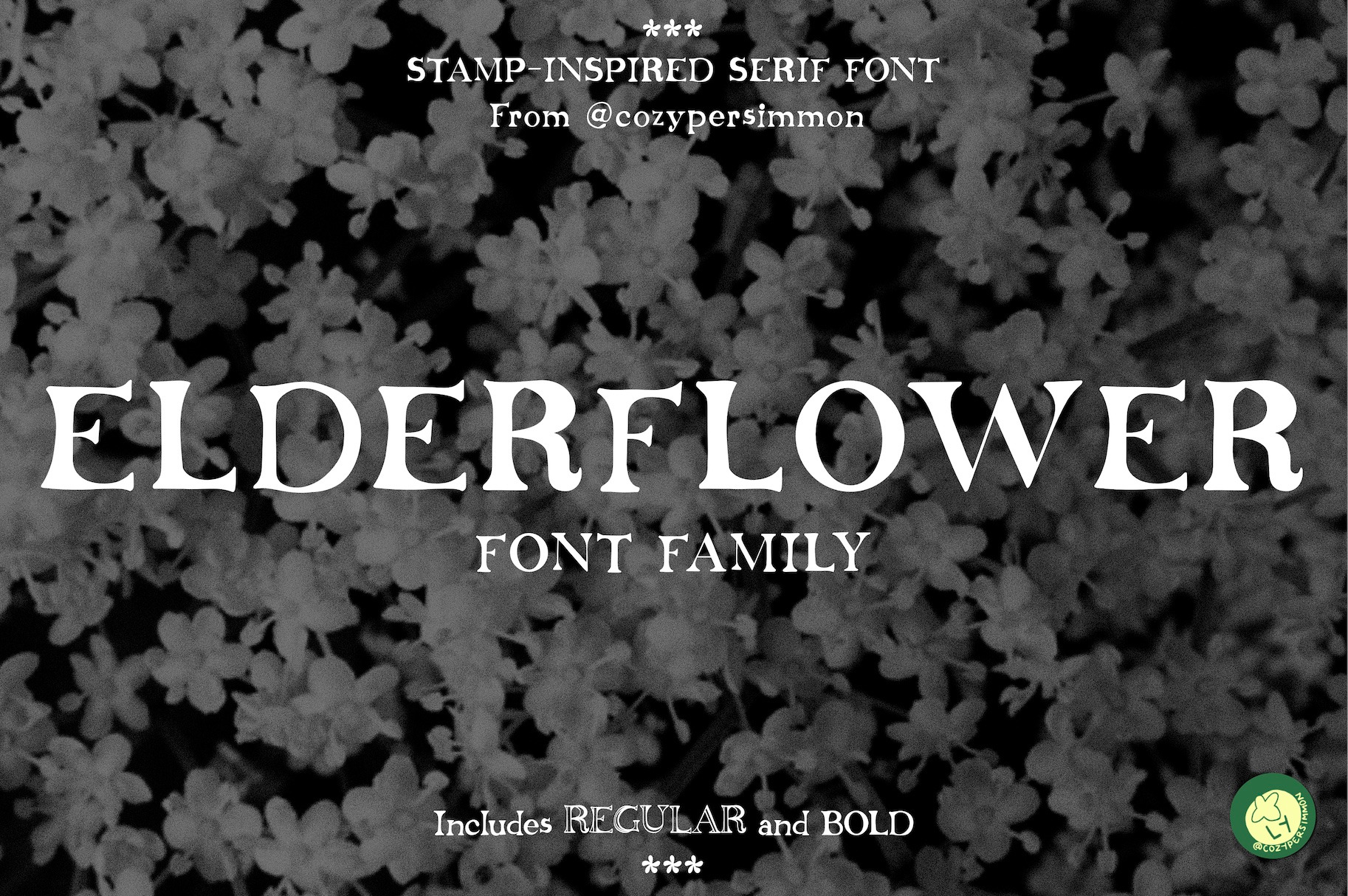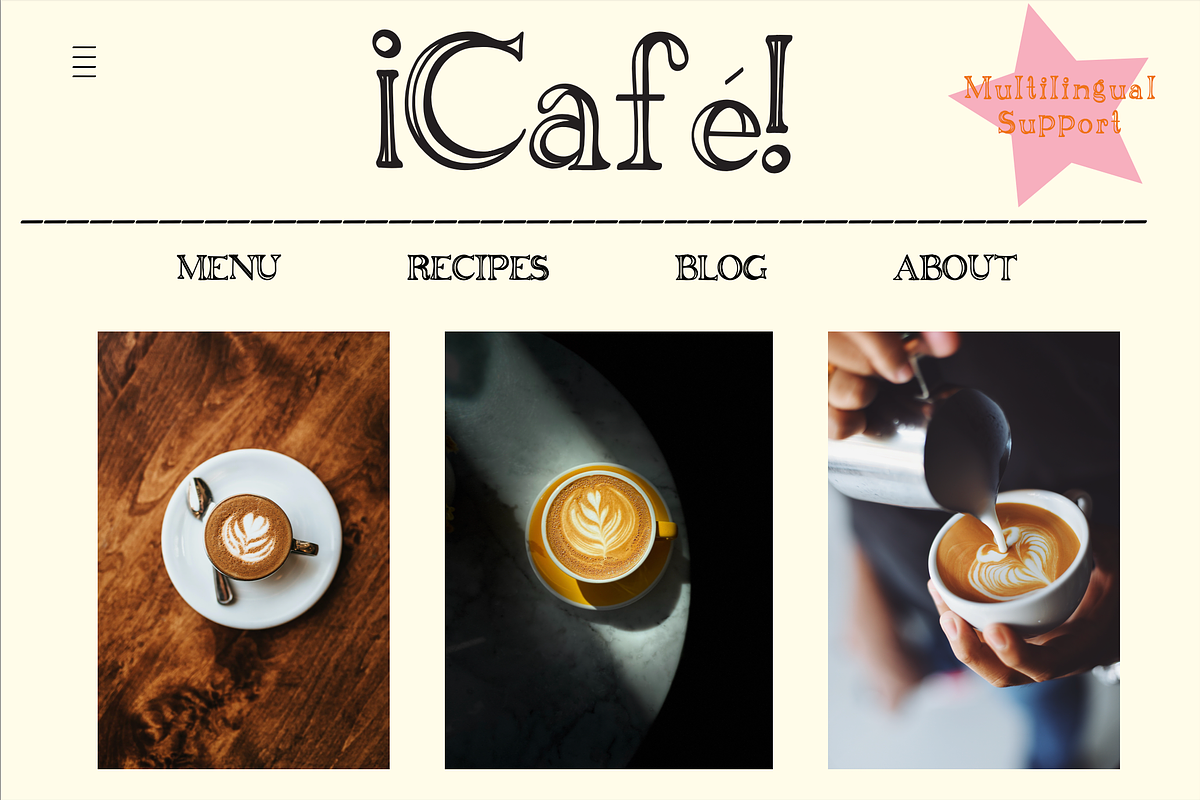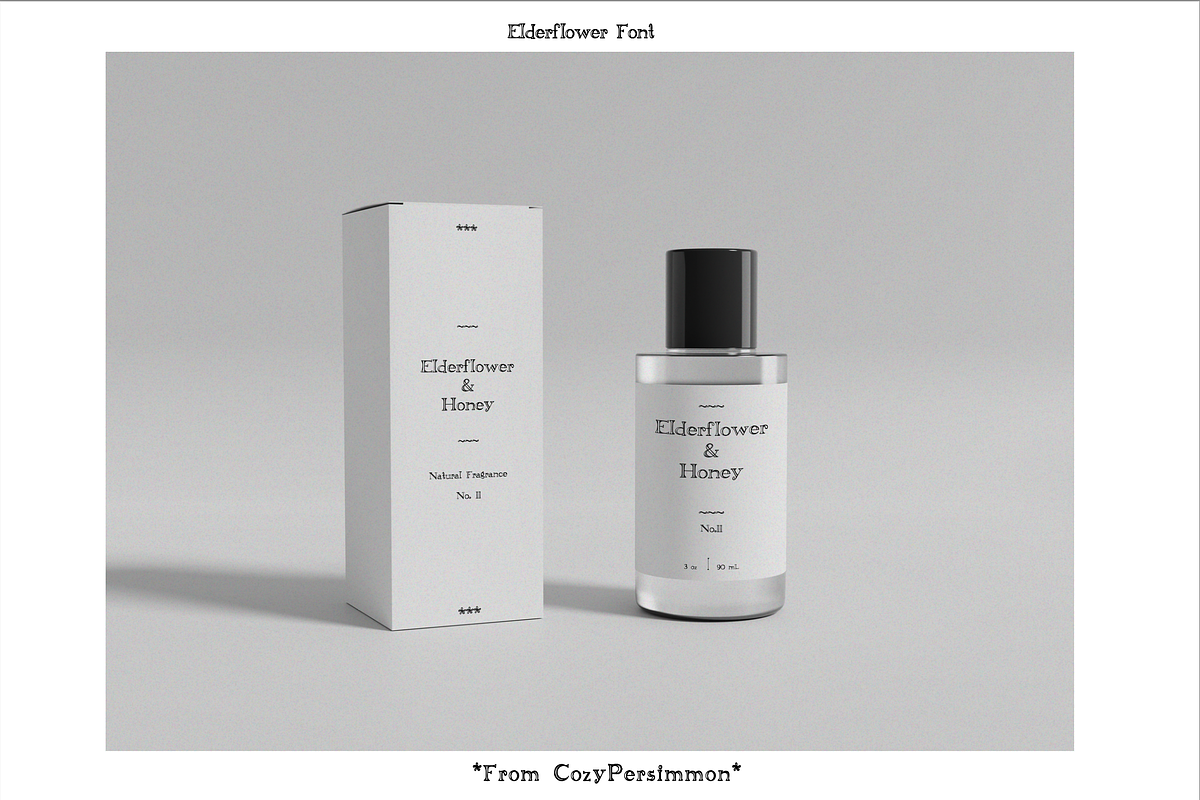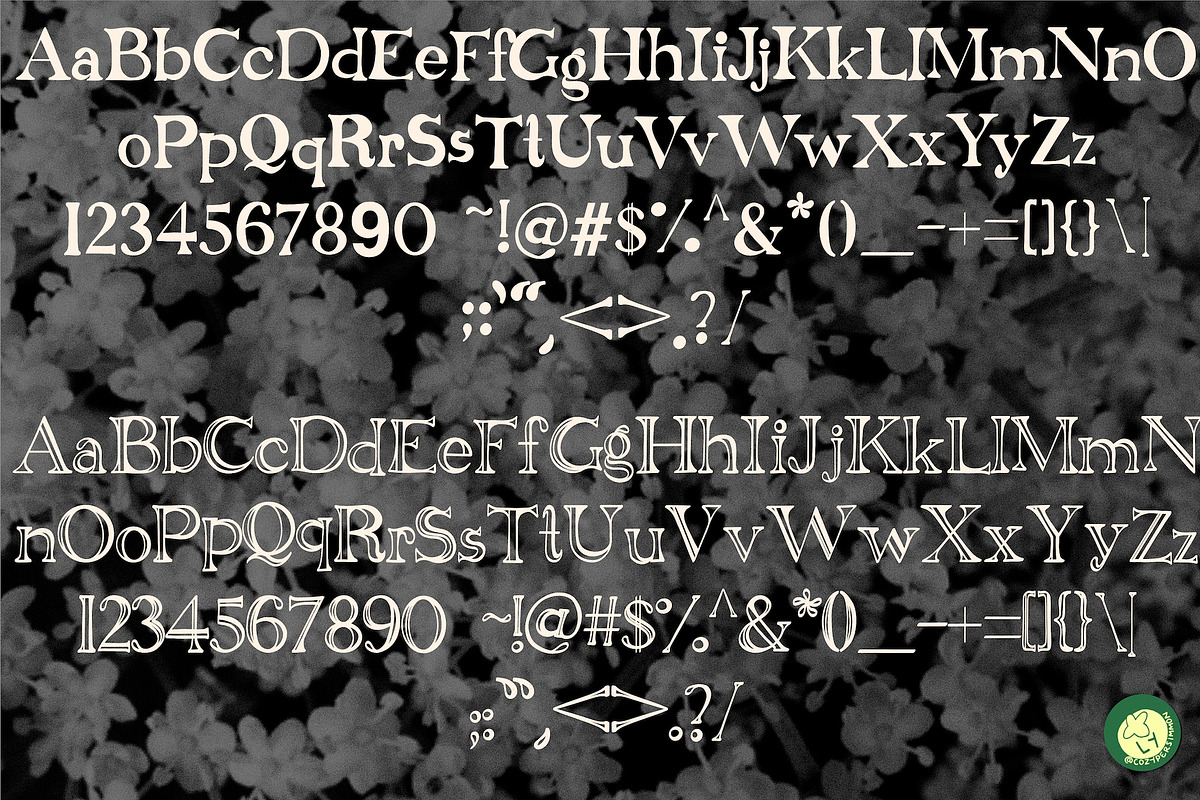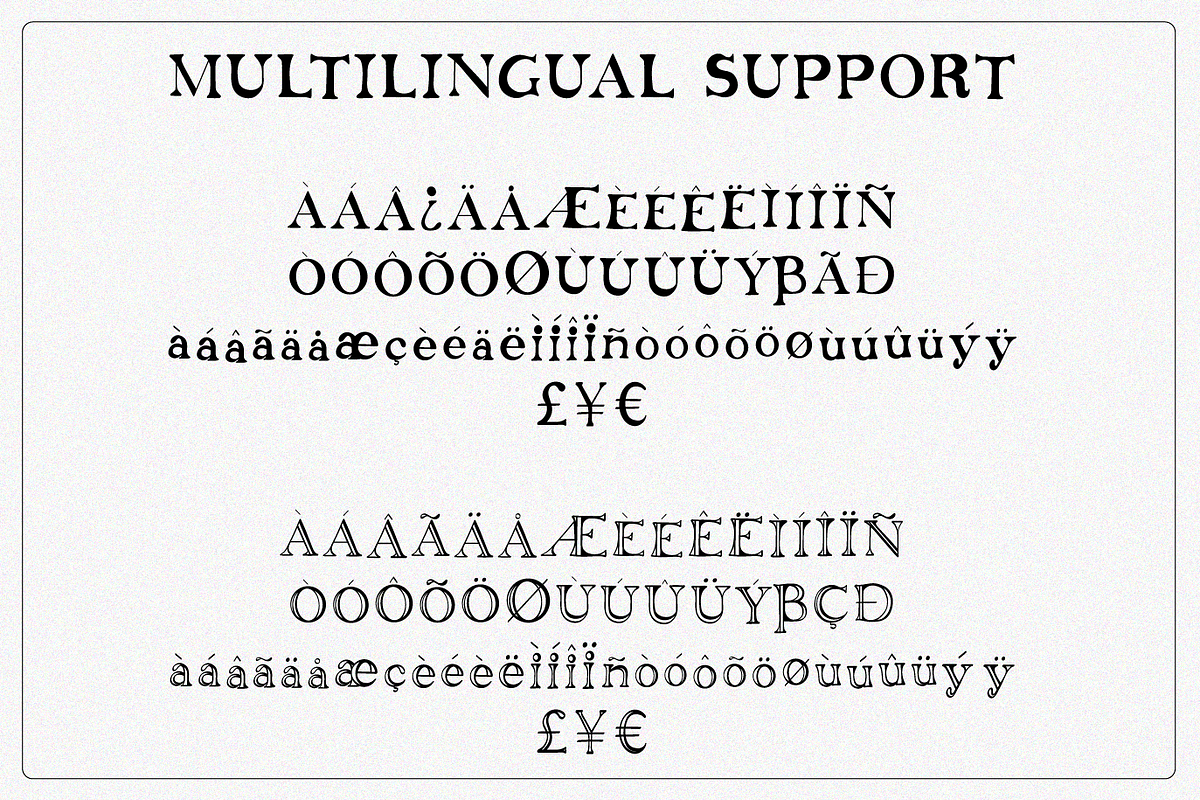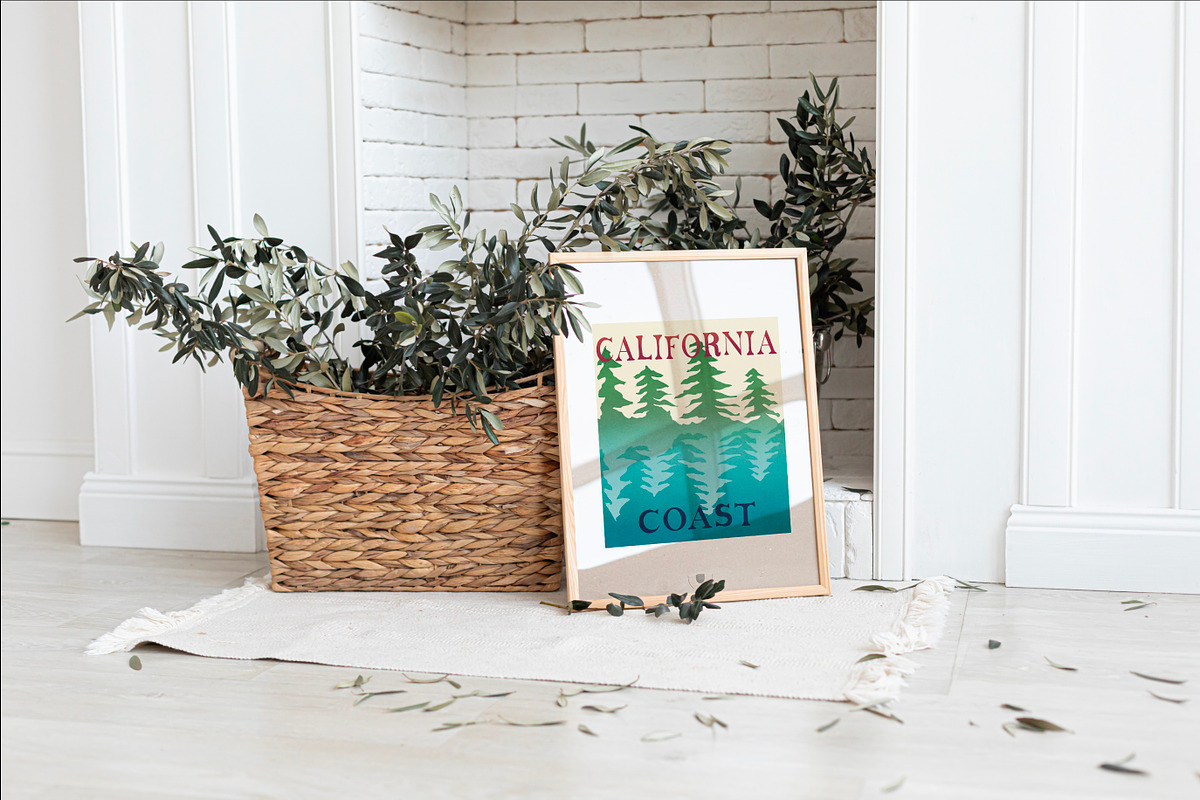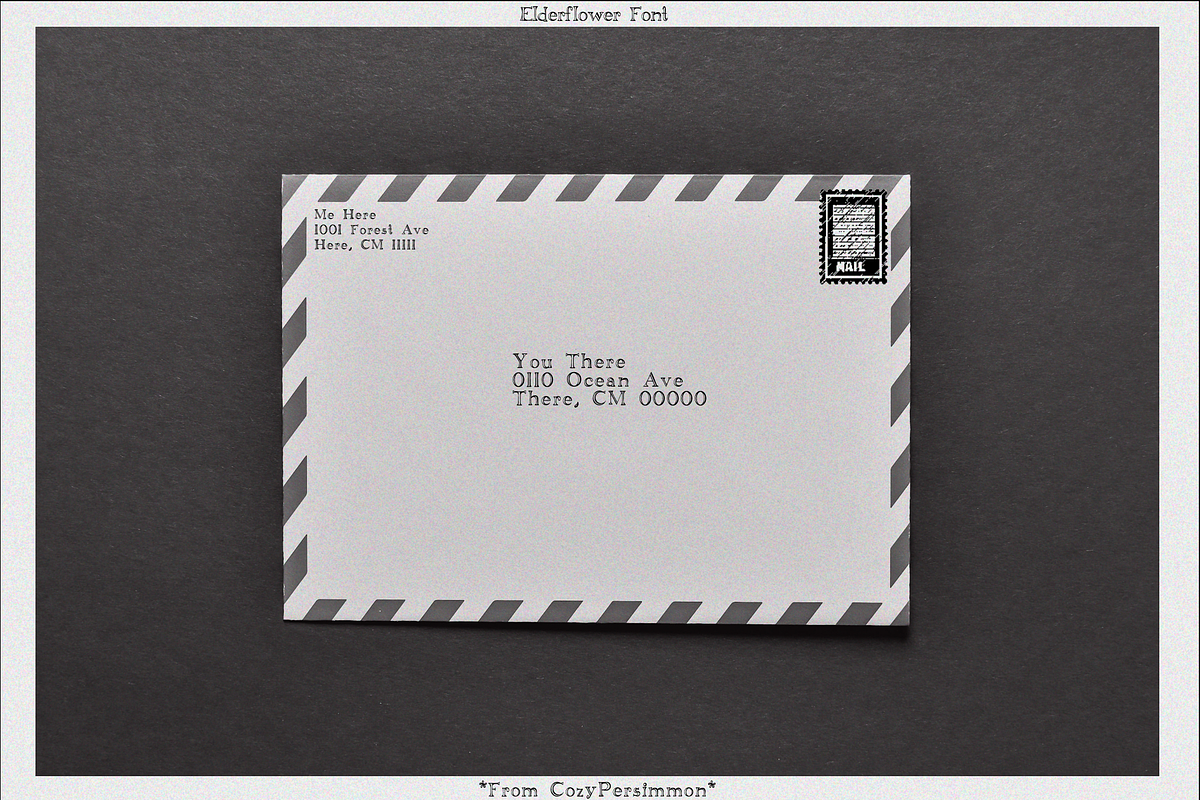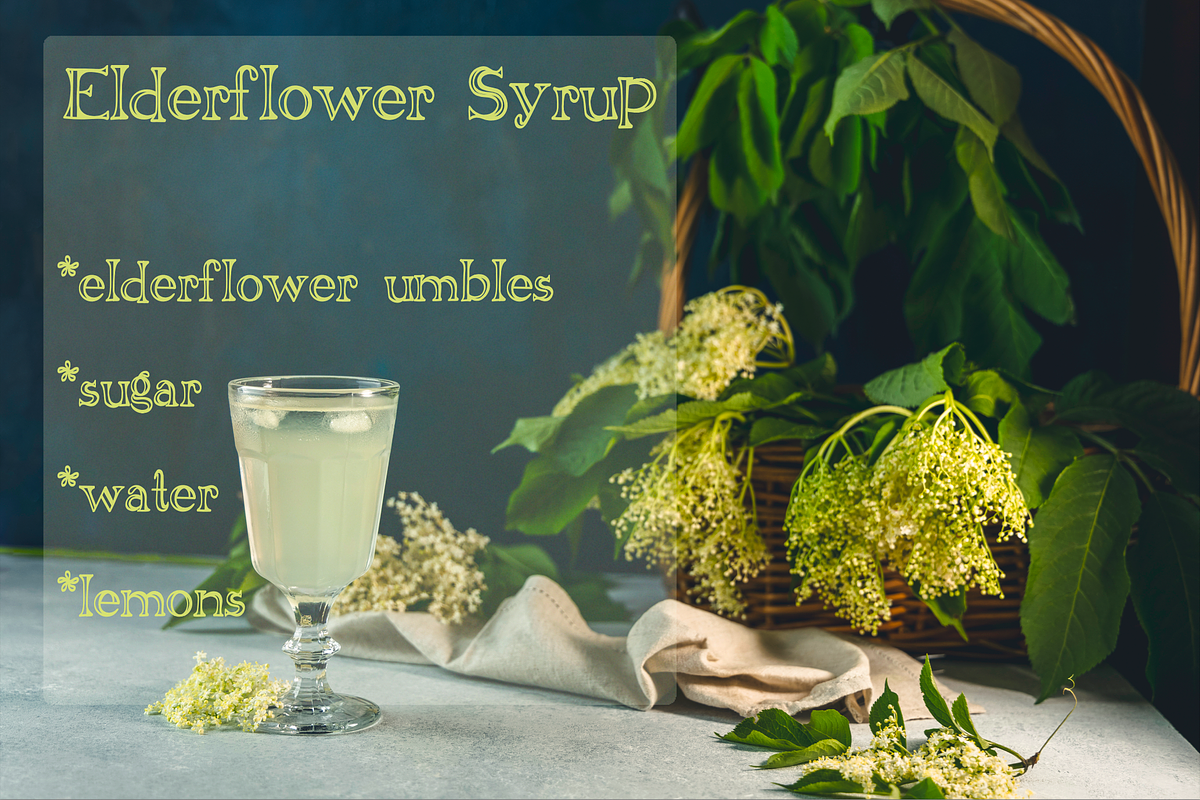
Elderflower Serif Font
Elderflower font family is a versatile serif font, perfect for any project. Regular and Bold styles included in this quirky font family. Inspired by academic-style, rubber stamp letters. Each glyph is hand-drawn for a unique look.
- Numbers, symbols